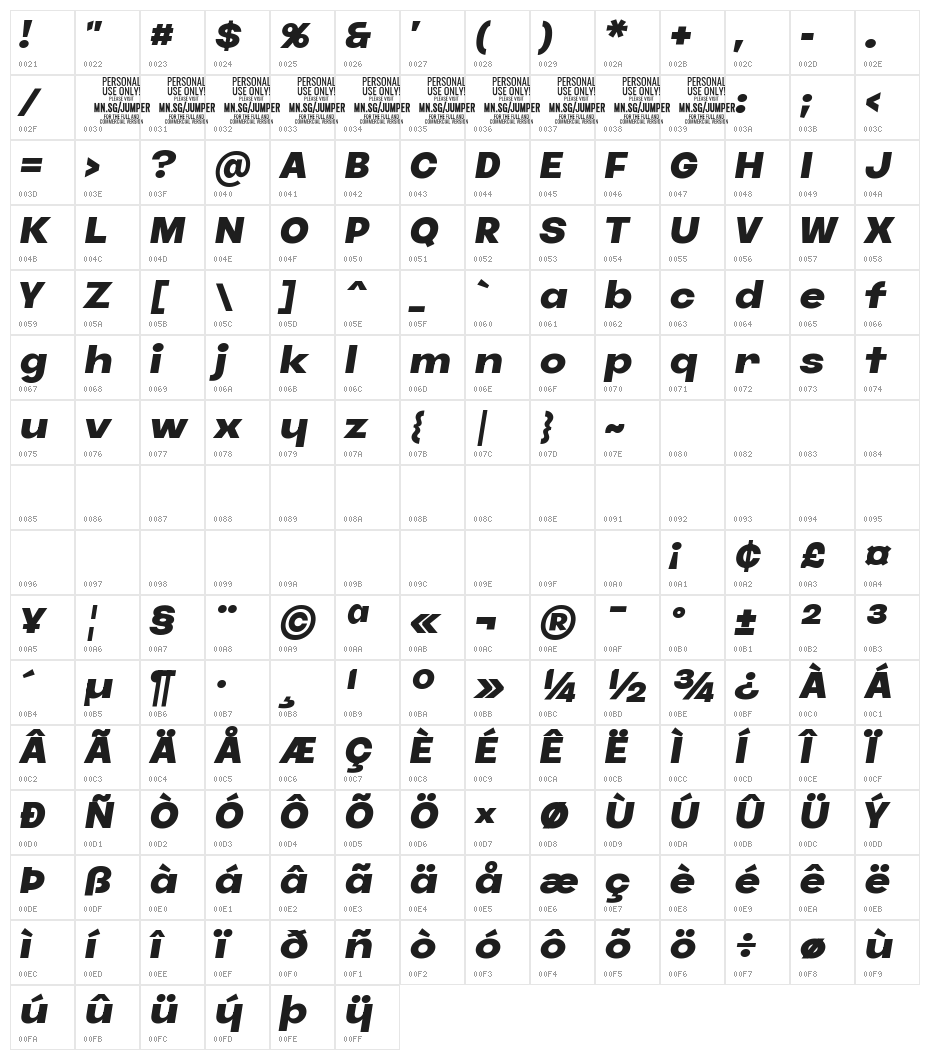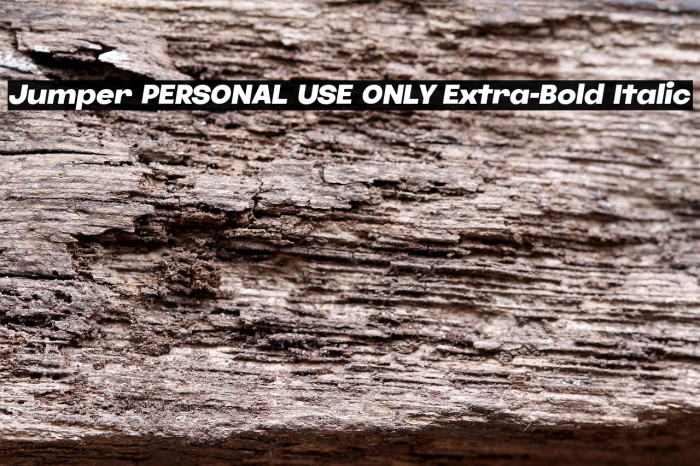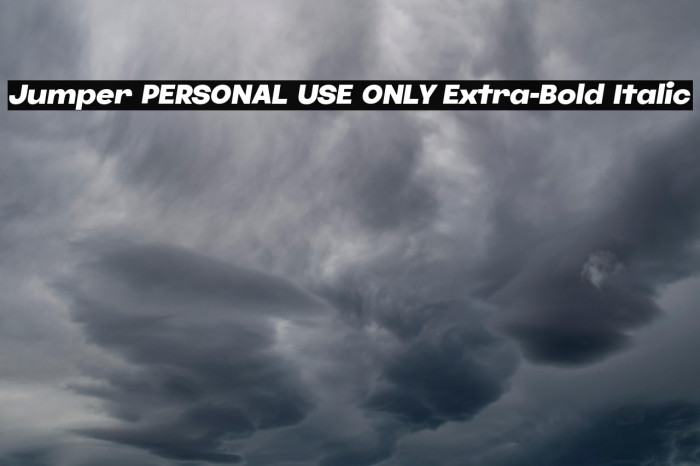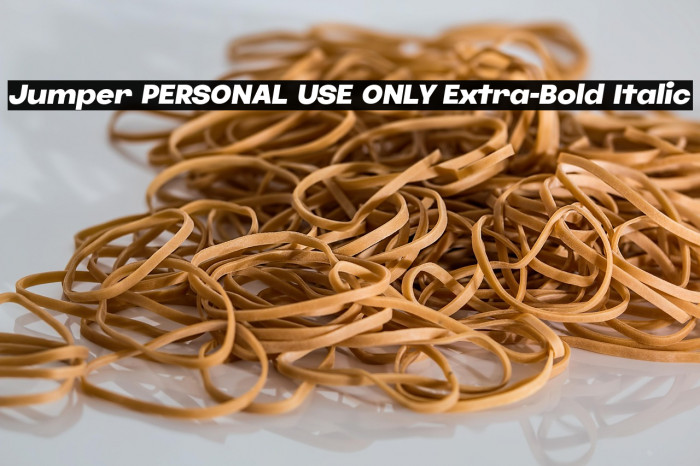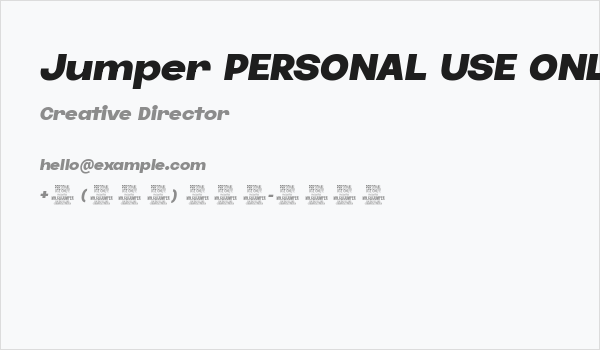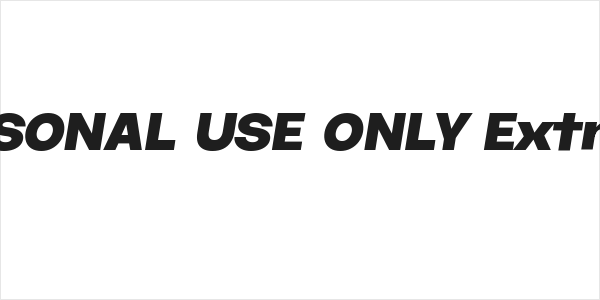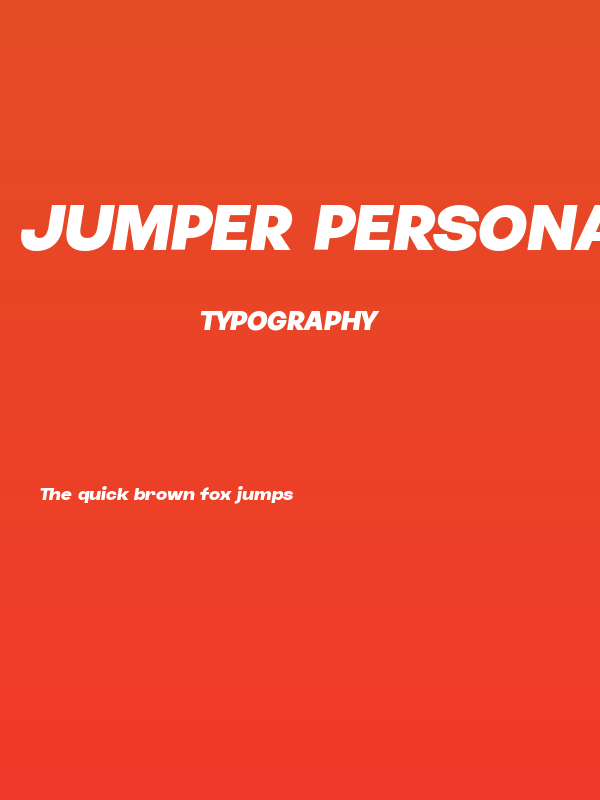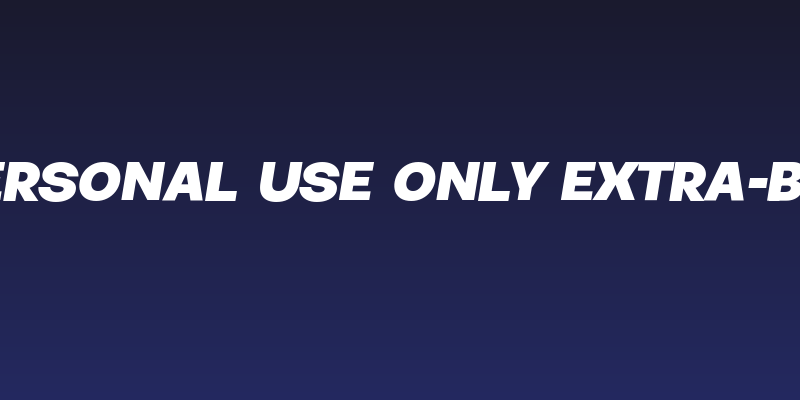
Jumper PERSONAL USE ONLY Extra-Bold Italic Font
Jumper PERSONAL USE ONLY Extra-Bold Italic Description
This typeface features a bold and dynamic presence with a strong italic slant, giving it a sense of motion and energy. The characters are robust and thick, providing excellent readability while maintaining a modern and sleek appearance. The uppercase and lowercase letters are well-balanced, with consistent stroke widths that enhance its boldness. The numerals and special characters are designed to match the overall style, ensuring uniformity across all text elements. This font is ideal for making a statement, with its eye-catching design and powerful visual impact.
| Proposed Projects | Ideal for headlines, posters, branding, and advertising where a strong visual impact is needed. |